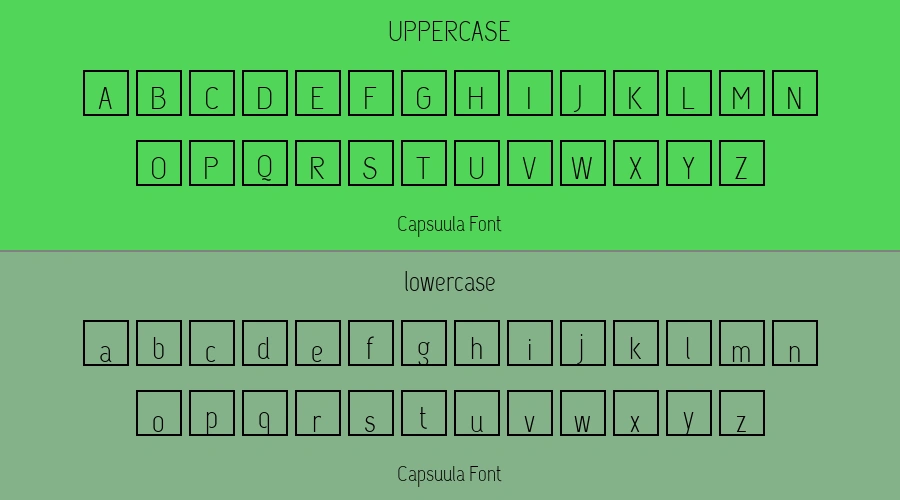
About Capsuula Font
Capsuula Font represents a sophisticated approach to type design, balancing precise alignment with adaptability. Perfect for product naming, this font family showcases impressive adaptability and visual authority throughout its character set. Designers appreciate its versatility and reliability.
Designers will appreciate nuanced touches including ornamental caps and traditional styling, adding sophistication to any project. These features become apparent in artistic statements, where overlay performance matters most. The careful treatment of x-height proportion and technical innovation ensures optimal performance.